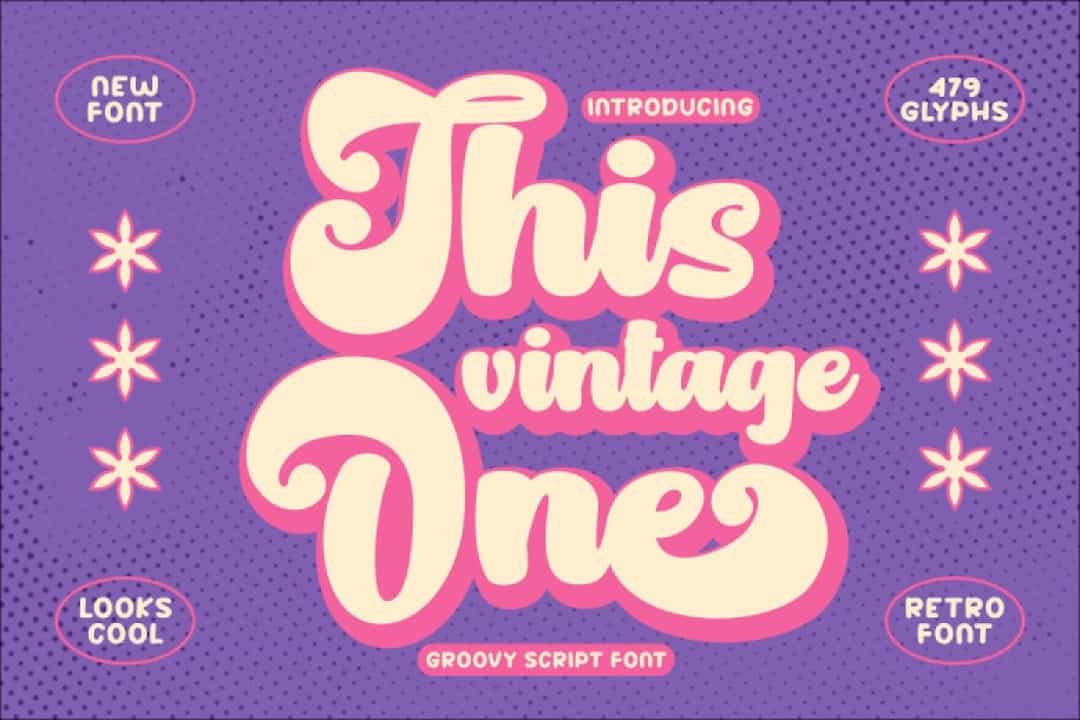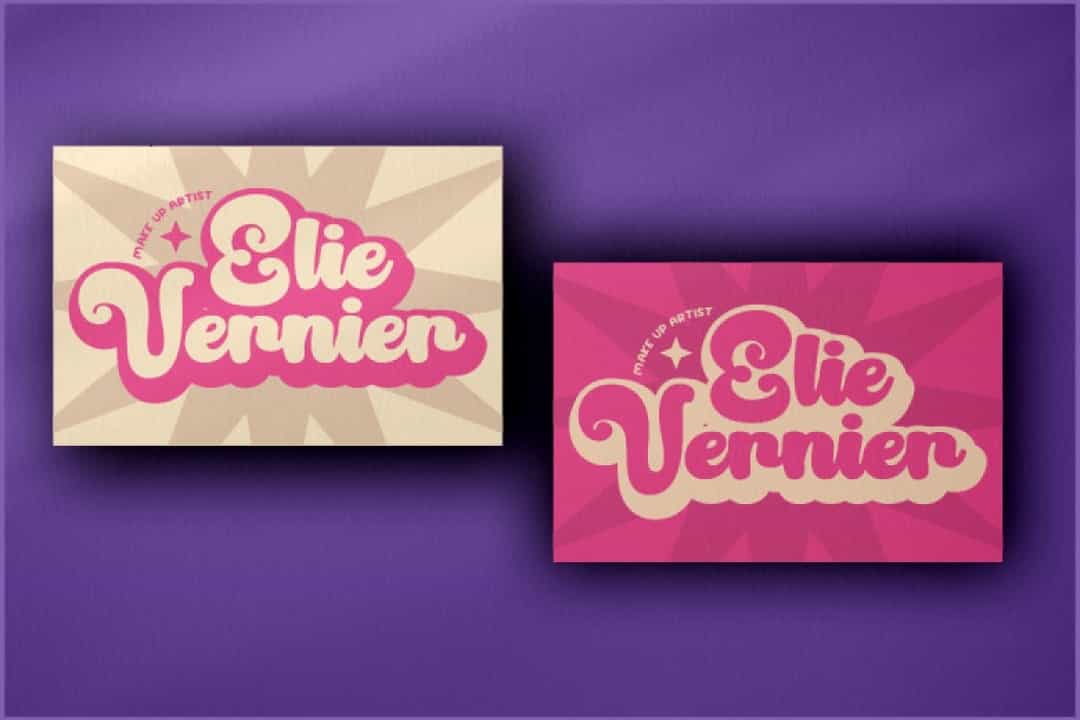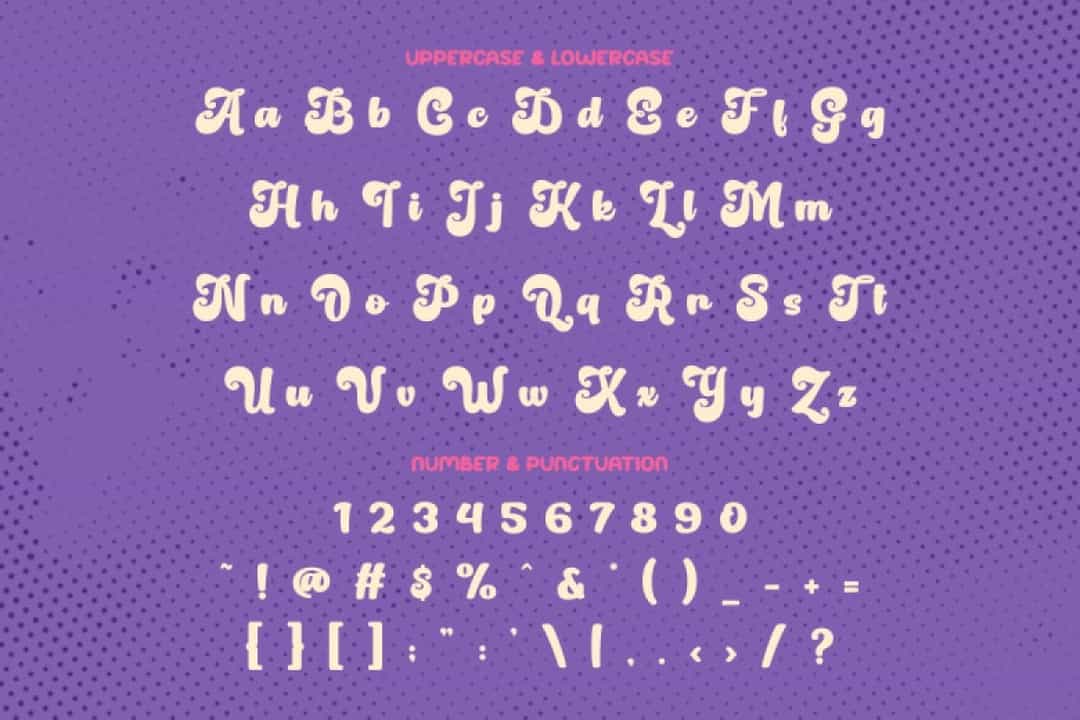
The Vintage One The Retro Font is an unusual, retro script typeface which perfectly captures its name with an air of nostalgia. This font offers many distinct characters, each with distinct variations – some even feature attractive swooshes within alternative fonts! Additionally, its thick strokes and pleasing appearance make this font suitable for various applications.